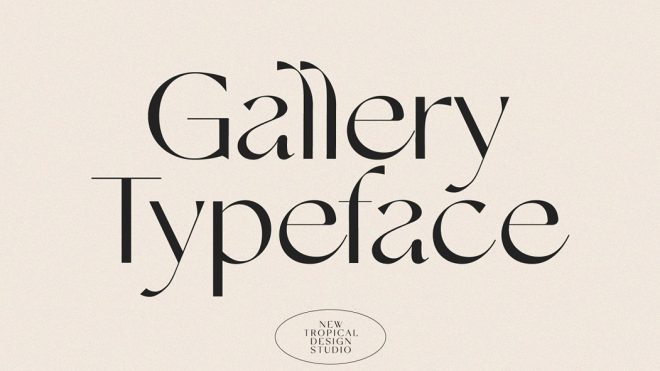
Gallery, a modern yet vintage-inspired typeface from New Tropical Design.
Gallery is a new multilingual typeface that combines a modern, playful touch …
Gallery Typeface from New Tropical Design
Gallery, a modern yet vintage-inspired typeface from New Tropical Design.
Gallery is a new multilingual typeface that combines a modern, playful touch …